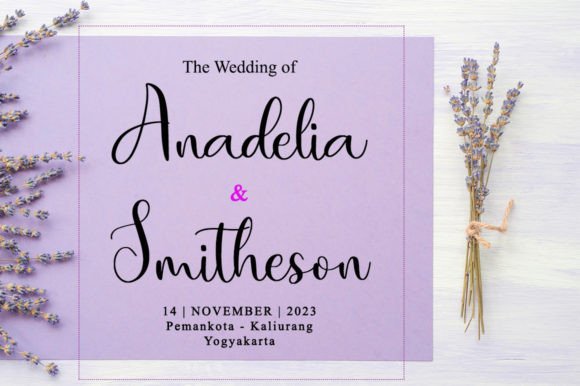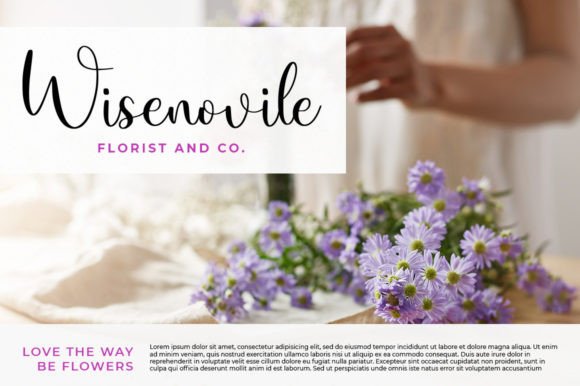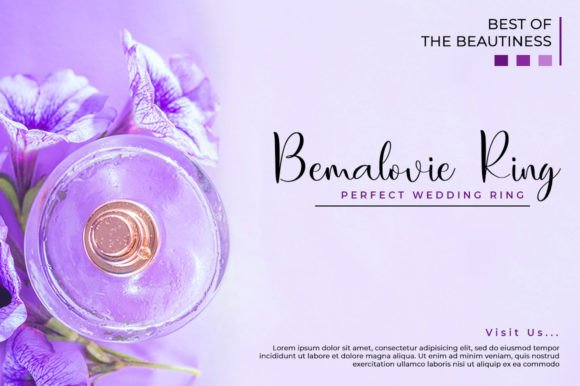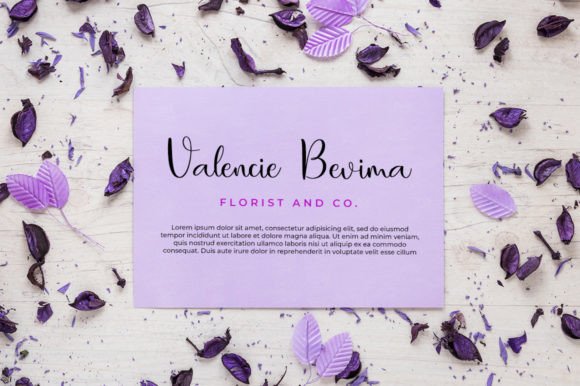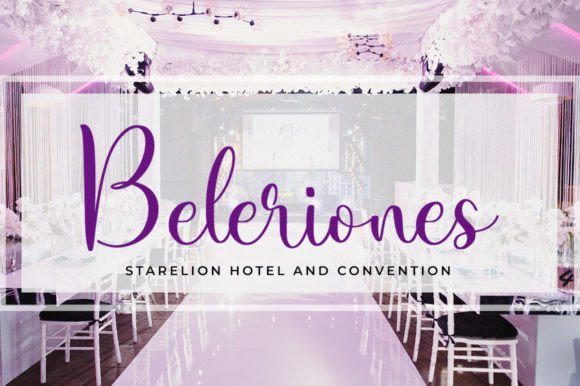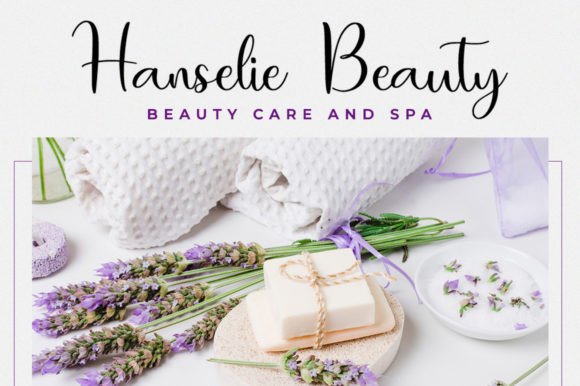
Introduction to Selantica Font
Have you ever been working on a creative project and suddenly, the perfect font just clicks into place? That’s exactly what happens when you discover the Selantica Font – a delicate and elegant handwritten font that adds a touch of sophistication to any design.
As a designer, you’re always on the lookout for high-quality design resources that can elevate your work. The Selantica Font is one such treasure, offering a unique blend of style and versatility that’s sure to captivate your audience. With its well-balanced letters and transparent background, this font is perfect for designers who want to create stunning visuals without the hassle of complicated formatting.
Whether you’re working on a branding project, a social media campaign, or simply a personal creative endeavor, the Selantica Font is an invaluable resource that’s sure to inspire your next masterpiece.
Key Features of Selantica Font
- Unique, elegant script design with a transparent background, allowing for versatile use in various designs.
- Perfect for designers and artists looking for a high-quality, free design resource to elevate their work.
- Unique characteristics include intricate details and flowing lines, making it ideal for creative projects that require a touch of elegance.
Honest Review: Selantica Font
I recently had the chance to work with the Selantica Font on a creative project, and I must say it’s been a game-changer. This high-quality font has become my go-to design resource for any project that requires a unique and stylish touch.
Here are some of the things that work well with the Selantica Font:
- ✨ The transparent background makes it easy to overlay text on images or use it as a background itself.
- ✨ The font is highly customizable, allowing me to adjust the size, color, and spacing to fit my design needs.
However, there are a few limitations I’ve encountered:
- ⚠️ The font may not be suitable for projects that require a more traditional or conservative look.
- ⚠️ The font can be quite bold, so it may not be the best choice for projects that require a more subtle approach.
Overall, I’m extremely impressed with the Selantica Font. Its high quality, versatility, and free download option make it a valuable addition to any designer’s toolkit. I highly recommend giving it a try on your next creative project!
Tips for Getting the Most Out of Selantica Font
The Selantica Font is ideal for designers, marketers, and entrepreneurs who want to give their projects a high-quality and professional touch. Use it for logos, branding, packaging, and other design elements that require a clean and modern look.